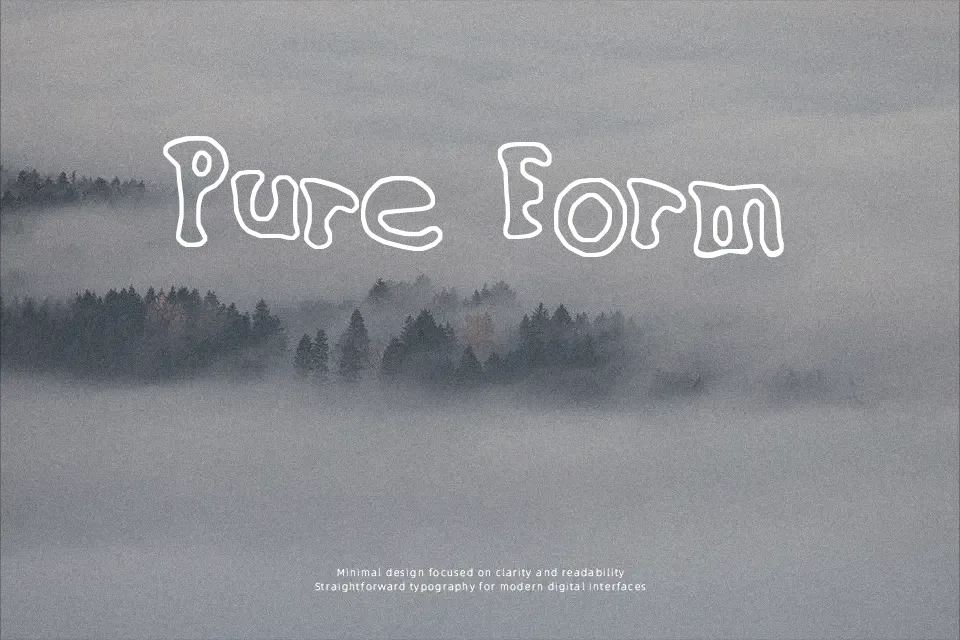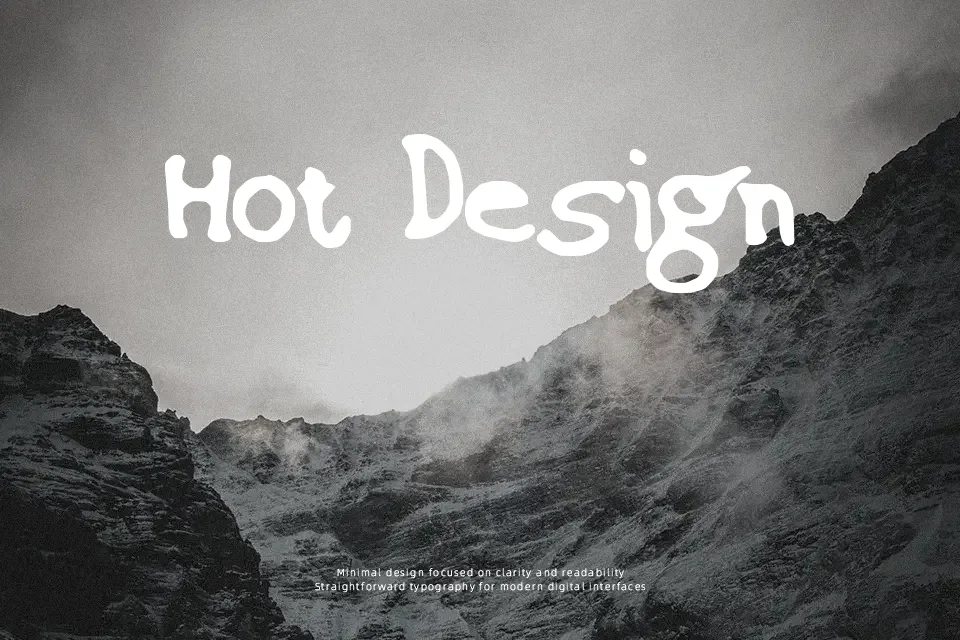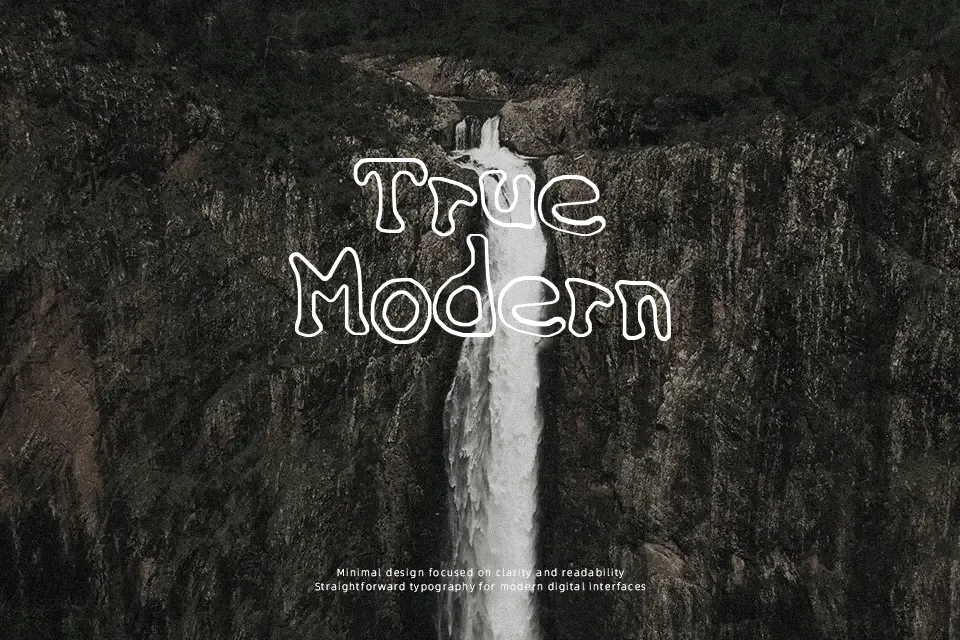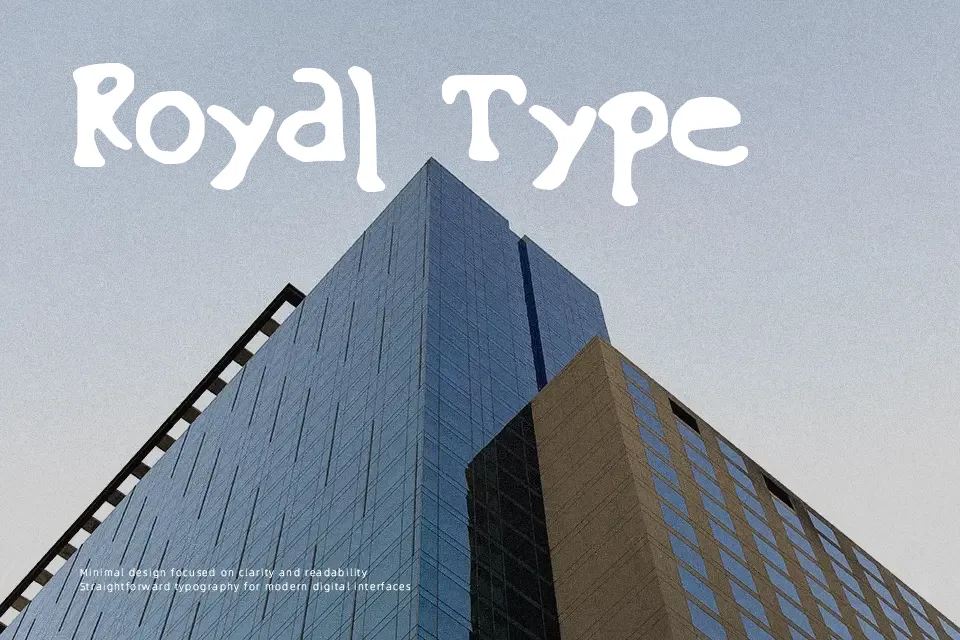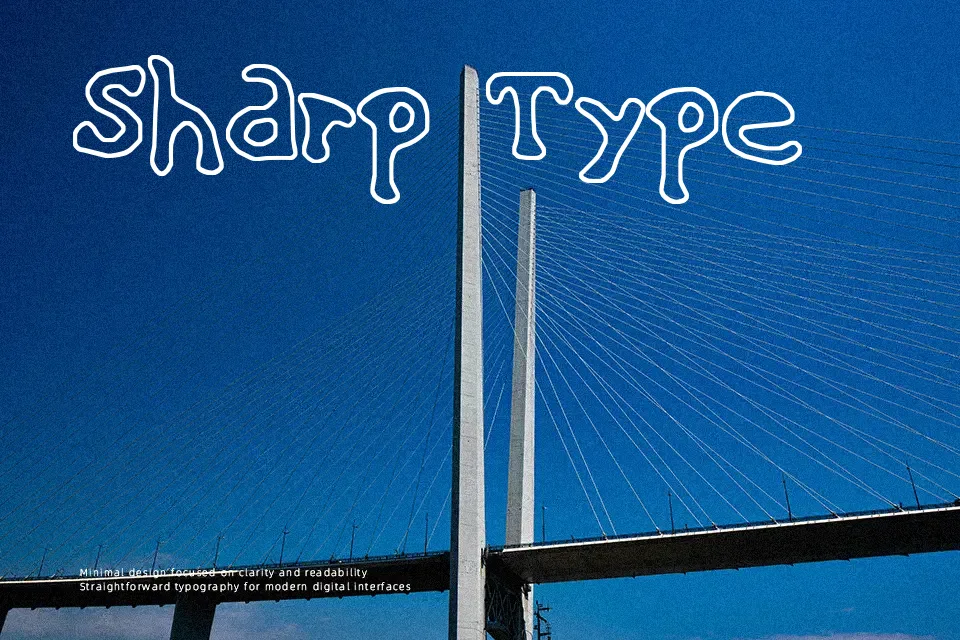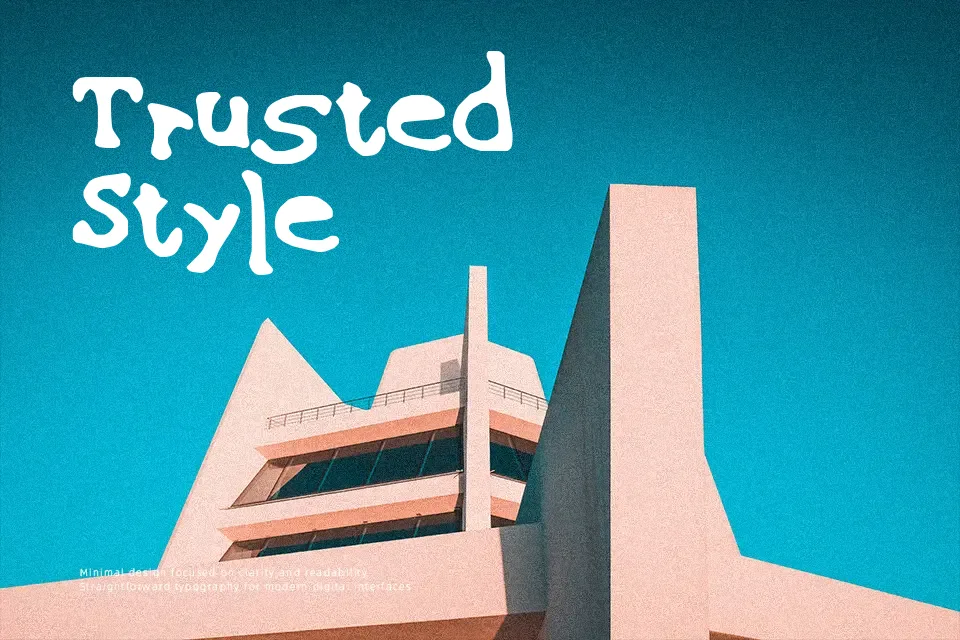
Sinking Ship Font
Featuring uneven contours and exaggerated proportions, Sinking Ship Font captures a quirky cartoon aesthetic built around hand-rendered letterforms. The typeface incorporates loose spacing and varied baseline alignment, creating a lively rhythm across uppercase and lowercase characters. Thick exterior strokes ensure that individual glyphs remain identifiable when rendered across medium and large display scales. However, the intentionally distorted geometry and irregular character widths make the design unsuitable for extended body text or dense editorial columns where standard legibility is required. The letterforms excel in vibrant contexts such as merchandise graphics, animated title cards, and themed party banners where casual personality takes precedence over formal alignment.
– Cartoon book titles
– Party invitation headers
– Apparel graphic prints
– Animated video titles
– Continuous paragraph reading
– Technical user interfaces
– Formal business correspondence
– Dense tabular data